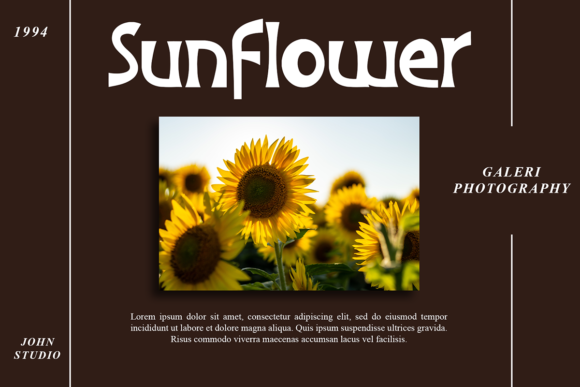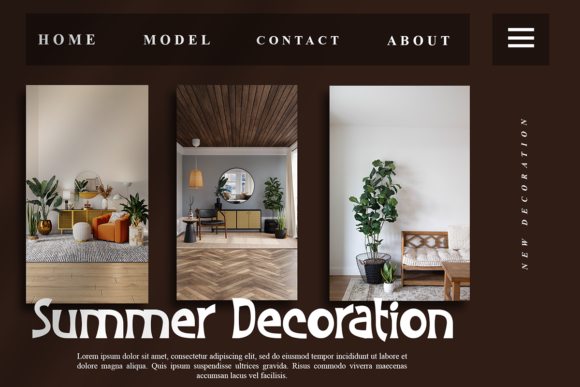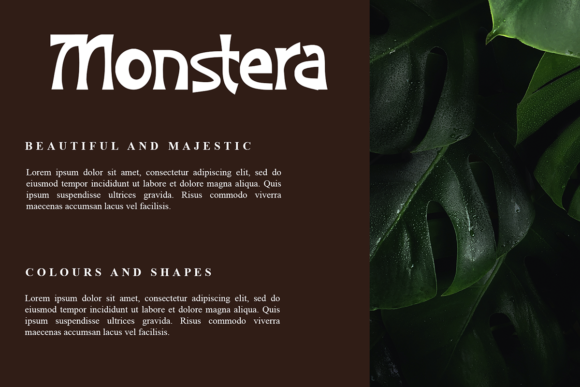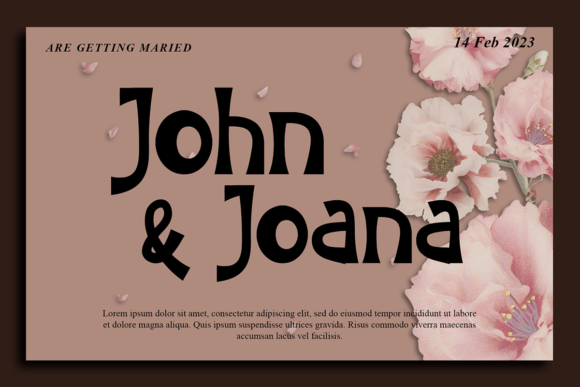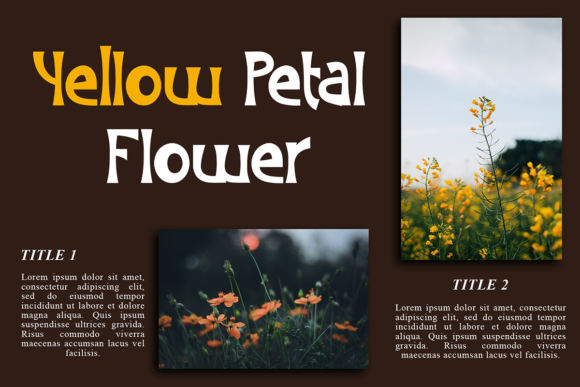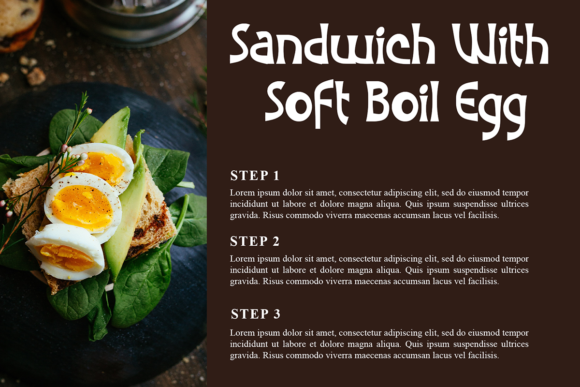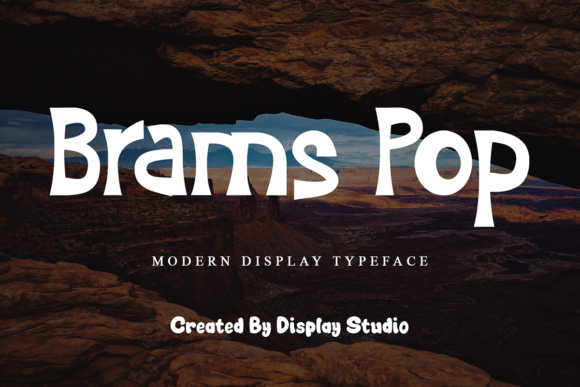
The Ultimate Guide to Brams Pop Font: Elevate Your Designs with this Charming Display Font
I’ll never forget the design project that led me to discover Brams Pop Font. I was working on a branding campaign for a trendy boutique, and I needed a font that would make their logo stand out. After hours of scouring font libraries and testing various options, I stumbled upon Brams Pop. Its unique letterforms and charming vibe instantly won me over. In this article, I’ll share my experience with Brams Pop, its features, and how to make the most of this amazing display font.
An Honest Review of Brams Pop Font
What I Love About Brams Pop ✨
- ✅ Unique letterforms: Brams Pop features distinctively shaped letters that add a touch of personality to any design.
- ✅ Trendy and charming: This font is perfect for designs that require a modern, stylish feel.
- ✅ Highly versatile: Brams Pop can be used for a wide range of projects, from logos and posters to social media graphics and more.
- ⚠️ Limited legibility at small sizes: Like many display fonts, Brams Pop may not be the best choice for body text or small font sizes.
- ⚠️ Some letters may require manual kerning: Depending on the design, you may need to adjust the kerning between certain letters for optimal results.
The Story Behind Brams Pop Font
Brams Pop Font was designed with the goal of creating a unique, attention-grabbing display font. The designer aimed to craft a font that would add a touch of personality to any design, while still being highly legible and versatile. The result is a font that has become a favorite among designers and crafters.
| What is Brams Pop Font best used for? | Brams Pop Font is ideal for designs that require a unique, attention-grabbing display font, such as logos, posters, social media graphics, and more. |
| Is Brams Pop Font suitable for body text? | No, Brams Pop Font is not recommended for body text or small font sizes, as it may be difficult to read. |